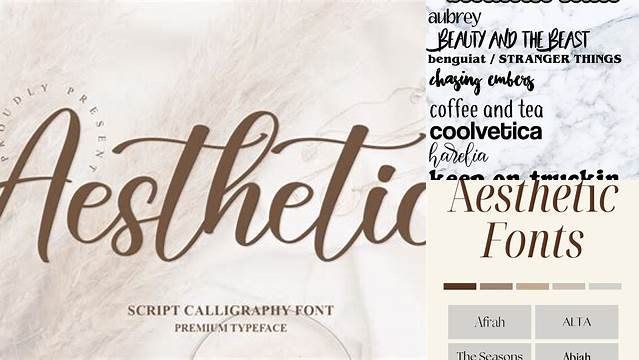
✨ Cool Aesthetic Fonts: Level Up Your Designs! ✨
Hey guys! Ever stumbled upon text that just pops and wondered how to achieve that same aesthetic font magic? You're in the right place! Let's dive into the world of unique and eye-catching fonts that can seriously level up your social media game, design projects, or just make your text look super cool. We’re going to explore a variety of aesthetic fonts, understand where to find them, and learn how to use them effectively. Trust me; by the end of this article, you'll be an aesthetic font pro!
What are Aesthetic Fonts?
Alright, so what exactly do we mean by aesthetic fonts? Basically, these are fonts that stand out from the usual Arial or Times New Roman. They have a certain vibe – think elegant, playful, edgy, or minimalist. Aesthetic fonts are all about expressing a mood or style through typography. These fonts often incorporate unique design elements like serifs, unusual letter spacing, or decorative features. The key is that they aren't your everyday, run-of-the-mill fonts; they're special and meant to catch the eye.
When we talk about aesthetic fonts, we're really talking about fonts that evoke a particular feeling or visual style. This could be anything from a vintage serif font that makes you think of old books and classic literature, to a bubbly, rounded sans-serif font that feels modern and playful. The best aesthetic fonts are those that not only look good but also communicate the intended message or emotion effectively. Whether you're designing a logo, creating social media graphics, or just want to add some flair to your personal projects, choosing the right aesthetic font can make all the difference.
Consider the impact of different aesthetic fonts on your audience. A sleek, minimalist font might convey sophistication and professionalism, while a handwritten script font could evoke warmth and personality. The right aesthetic font can enhance the overall design and make your content more engaging and memorable. Think about how brands use typography to create a distinct identity. For example, a luxury brand might use a refined serif font to convey elegance, while a tech company might opt for a clean, modern sans-serif font to project innovation. Understanding the nuances of aesthetic fonts allows you to create designs that resonate with your target audience and reflect your unique style.
Popular Types of Aesthetic Fonts
Okay, let’s get into some specific types of aesthetic fonts that are super popular right now. We've got a whole bunch to cover, each with its own special flair:
1. Serif Fonts with a Twist
Serif fonts are those classic fonts with the little feet (serifs) at the end of each stroke. But aesthetic serif fonts take it up a notch. Imagine serifs that are extra long, super thin, or have a quirky curve. These fonts give off a vintage yet modern vibe, perfect for adding a touch of elegance with a twist. The beauty of aesthetic serif fonts lies in their ability to blend traditional charm with contemporary design elements. These fonts often feature unique serifs that add character and visual interest, making them ideal for headlines, logos, and other design elements where you want to make a statement.
Aesthetic serif fonts are versatile and can be used in a variety of contexts. For example, a serif font with exaggerated serifs might be perfect for a fashion magazine or a luxury brand, while a more subtle serif font with slightly curved serifs could be used for a book cover or a website header. The key is to choose a serif font that complements the overall design and reflects the intended message. When selecting aesthetic serif fonts, pay attention to the details, such as the shape and size of the serifs, the thickness of the strokes, and the overall balance of the font. These elements can significantly impact the font's readability and visual appeal.
Moreover, aesthetic serif fonts often pair well with sans-serif fonts, creating a balanced and visually appealing contrast. For instance, you could use a bold serif font for your headlines and a clean sans-serif font for your body text. This combination can help to draw attention to key elements while maintaining readability and visual harmony. Experiment with different pairings to find the perfect combination that suits your design aesthetic. Whether you're aiming for a classic, vintage look or a more modern, edgy feel, aesthetic serif fonts can help you achieve your desired effect.
2. Sans-Serif with Character
Sans-serif fonts are the clean, minimalist cousins of serif fonts – no feet here! Aesthetic sans-serif fonts come with added personality, like unusual letter shapes, wider spacing, or a bold, modern look. These are fantastic for a clean but stylish feel. These fonts are all about simplicity with a touch of uniqueness. Unlike traditional sans-serif fonts that can sometimes feel generic, aesthetic sans-serif fonts incorporate subtle design elements that make them stand out. This could be anything from slightly rounded corners to unconventional letterforms that add character and visual interest.
One of the key benefits of aesthetic sans-serif fonts is their versatility. They work well in a variety of design contexts, from website headers and body text to logos and branding materials. Their clean, modern look makes them particularly well-suited for digital applications, where readability is essential. When choosing aesthetic sans-serif fonts, consider the overall tone and style of your project. A bold, geometric sans-serif font might be perfect for a tech company, while a softer, more rounded sans-serif font could be ideal for a creative agency. The goal is to find a font that not only looks good but also communicates the intended message effectively.
Furthermore, aesthetic sans-serif fonts are often designed to be highly legible, even at smaller sizes. This makes them a great choice for body text and other content-heavy applications. However, it's still important to pay attention to kerning and letter spacing to ensure optimal readability. Experiment with different font weights and styles to create visual hierarchy and add emphasis to key elements. By carefully selecting and using aesthetic sans-serif fonts, you can create designs that are both visually appealing and easy to read.
So there you have it! A deep dive into the world of aesthetic fonts. With the right fonts and a little creativity, you can transform your designs and make them truly stand out. Go ahead, experiment, and have fun finding the perfect aesthetic fonts for your next project. Happy designing, guys! Remember, the key is to balance aesthetics with readability and to choose fonts that align with your brand or project's overall message and style. With these tips in mind, you'll be well on your way to creating visually stunning and effective designs that capture attention and leave a lasting impression.